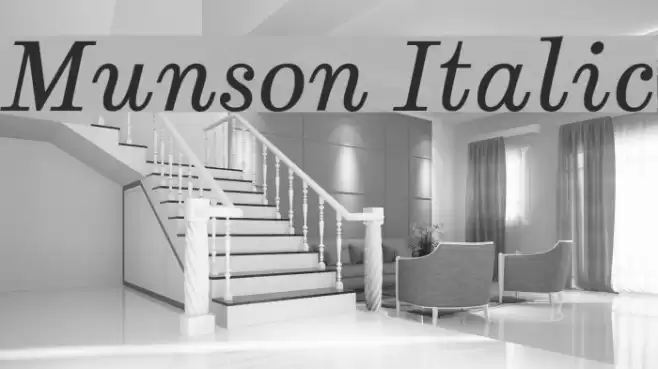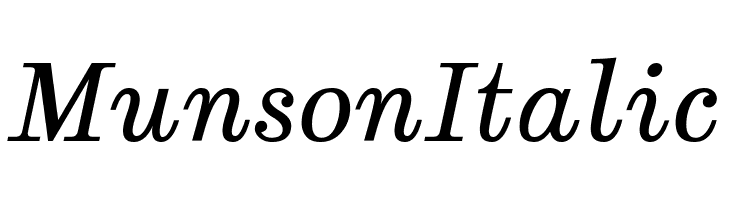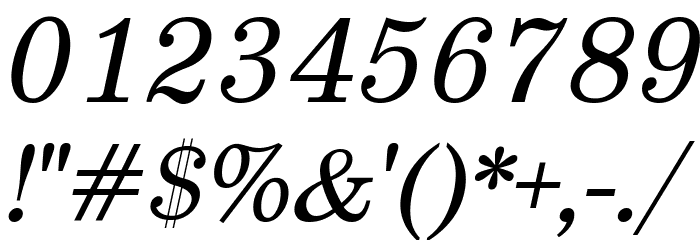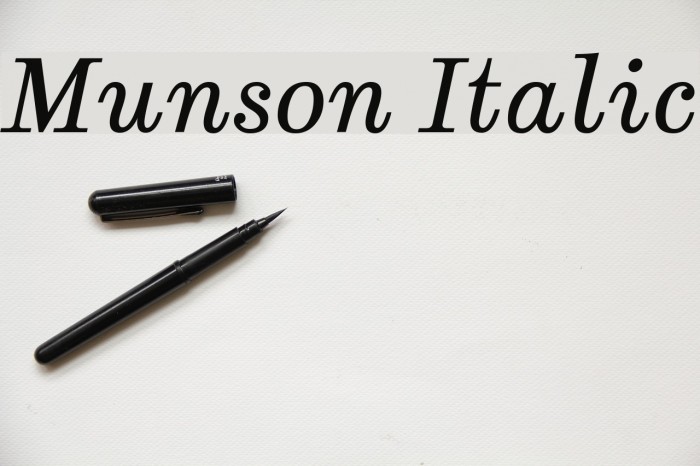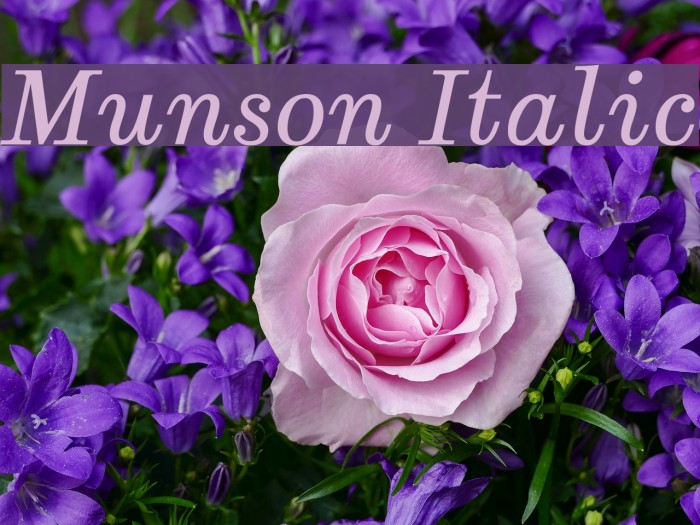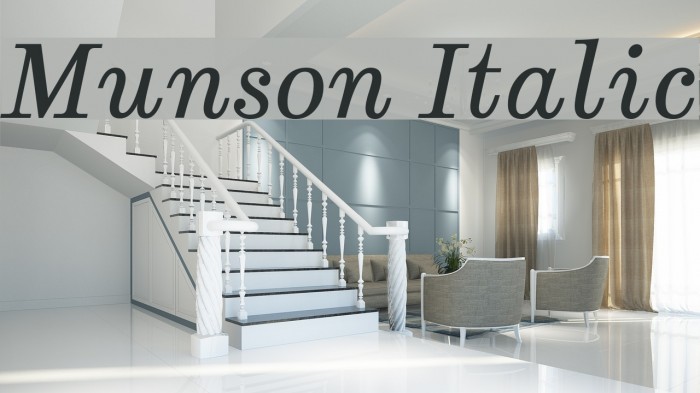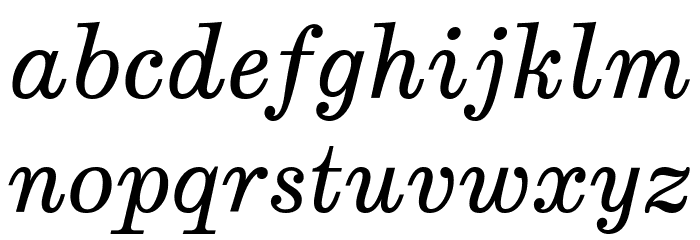
Munson Italic Font
Munson Italic Description
This font features a classic italic serif style, characterized by its elegant and flowing letterforms. The slanted design adds a sense of motion and sophistication, making it suitable for formal and traditional applications. The uppercase letters are bold and commanding, while the lowercase letters maintain a graceful and consistent flow. The numerals are clear and balanced, ensuring readability. Special characters are designed to complement the overall aesthetic, with smooth curves and precise angles. This font's timeless appeal makes it versatile for various design needs.
An elegant italic serif font with classic, flowing letterforms from Uncategorized fonts.
- Overall Style: Classic